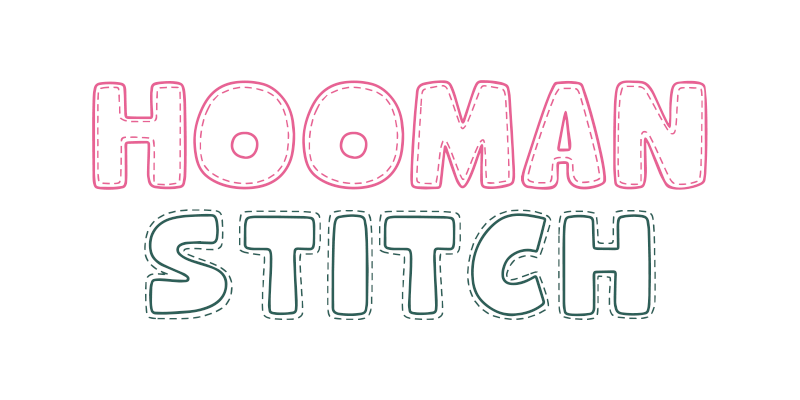
Hooman Stitch by DCLL Studio
Bubble outline caps stitched together like a plush toy
Hooman Stitch is a heavy, bubble sans serif font with stitches either just inside or just outside the letter borders.